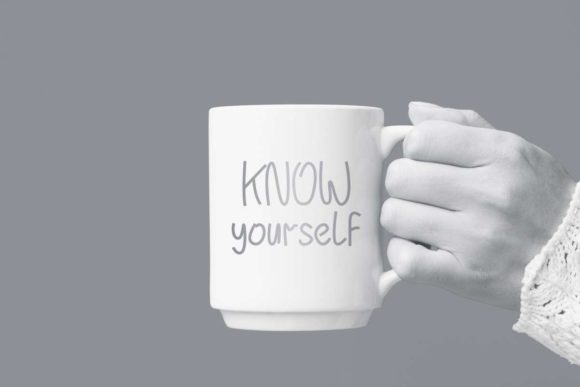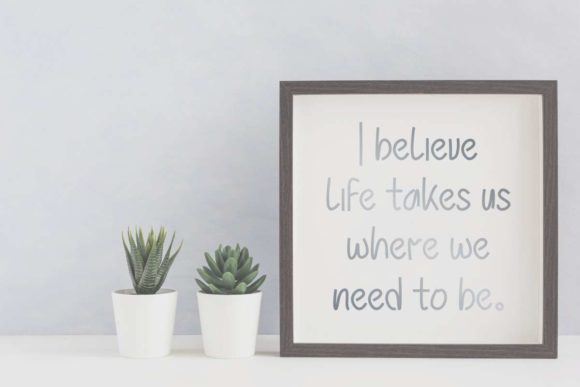
Introduction to Sheinman Font
Do you remember the excitement of creating your first craft project as a child? The feeling of freedom and imagination that came with it? As designers, we strive to capture that same sense of wonder and playfulness in our work, and that’s where the Sheinman Font comes in.
With its charming, handwritten style, the Sheinman Font is the perfect addition to any creative project, from children’s activity sheets to educational materials. Its high quality and versatility make it a valuable resource for designers looking to add a personal touch to their designs.
Whether you’re working on a free download or a commercial project, the Sheinman Font is sure to bring a smile to your face and a touch of authenticity to your designs. So why not give it a try and see how it can elevate your creative projects?
Key Features of Sheinman Font
• High-quality font with a transparent background, ideal for creative projects requiring a clean and minimalist design.
• Unique characteristics include a bold and modern aesthetic, making it perfect for use in logos, branding materials, and other design projects.
• Comprehensive character set, including uppercase and lowercase letters, numbers, and punctuation marks, allowing for versatile use in a variety of creative projects.
Honest Review: Sheinman Font
I recently stumbled upon the Sheinman Font, and I have to say it’s been a game-changer for my creative projects. The free download was a major plus, and the quality is top-notch.
• ✨ Customizable and highly versatile, making it perfect for a wide range of designs
• ✨ Beautifully crafted, with intricate details that add a touch of elegance to any project
However, I do have a few minor complaints. One of the biggest drawbacks is that the font only comes in a transparent background, which can make it tricky to use in certain design scenarios.
• ⚠️ Limited availability of font sizes and styles, which can be a hindrance for more complex designs
• ⚠️ No comprehensive documentation or tutorials, making it difficult for beginners to get started
Overall, I’m thoroughly impressed with the Sheinman Font. Its unique blend of style and versatility has taken my designs to the next level, and I highly recommend it to anyone looking for a high-quality design resource.
Sheinman Font
Introduction to Sheinman Font
The Sheinman Font is a high-quality, free download design resource ideal for creative projects that require a unique and elegant touch. With its transparent background, this font offers versatility in various design applications.
Tips for Getting the Most Out of Sheinman Font
Experiment with different font sizes, colors, and styles to achieve a unique look.
Combine the Sheinman Font with other design elements to create a visually appealing design.
Common Use Cases for Sheinman Font
The Sheinman Font is ideal for:
Business cards and marketing materials
Personal projects and creative endeavors